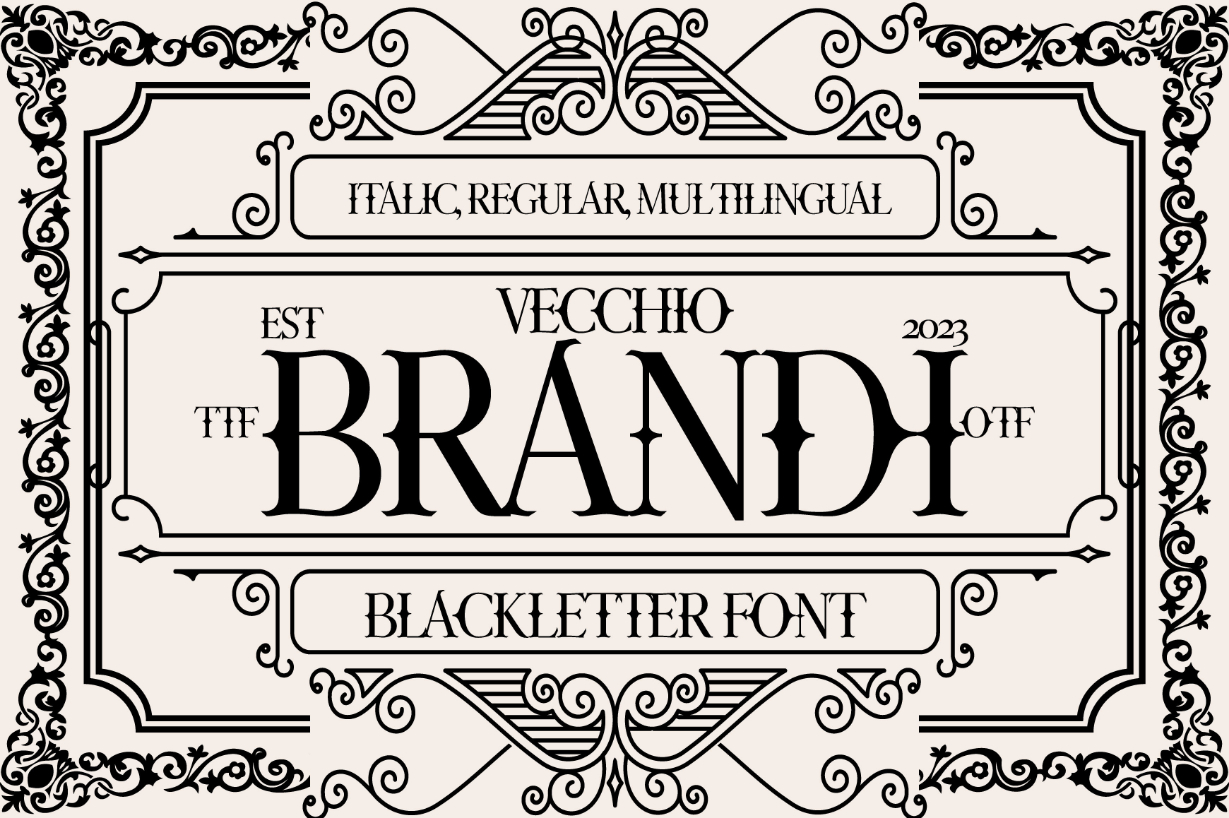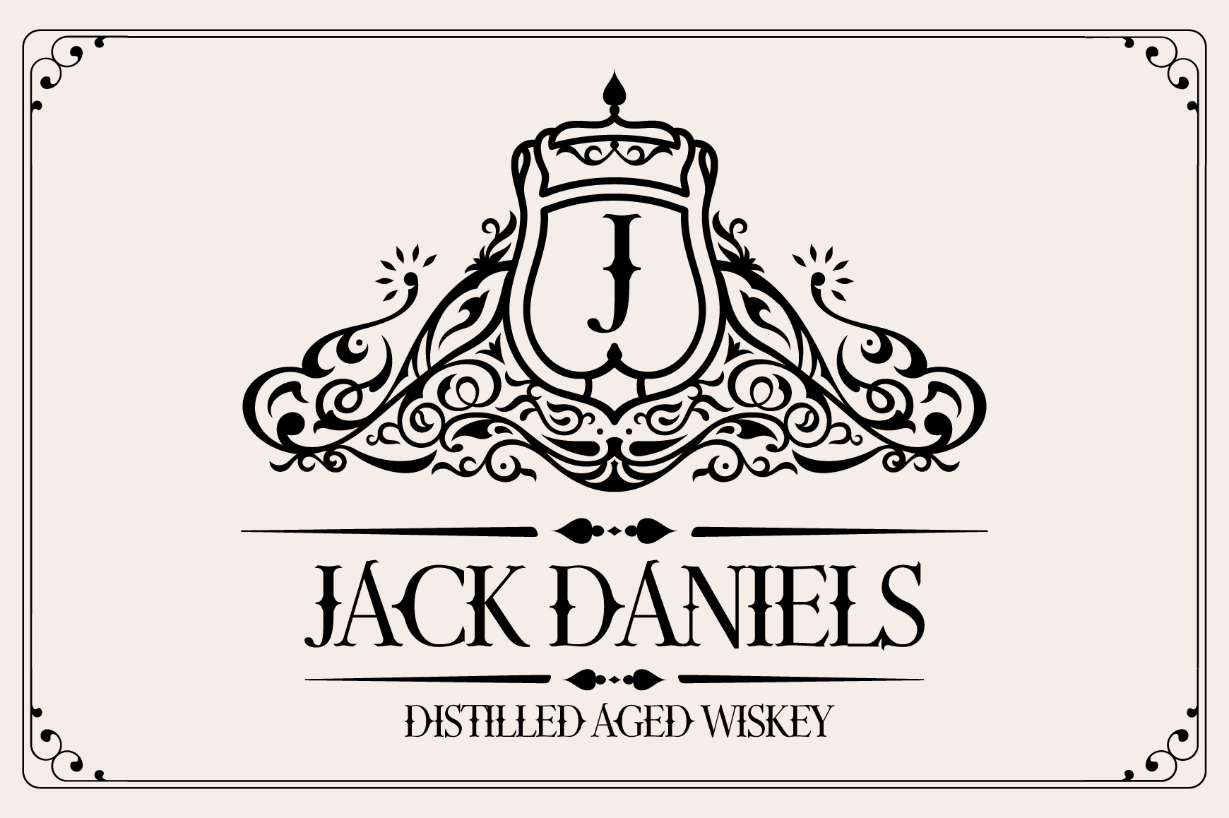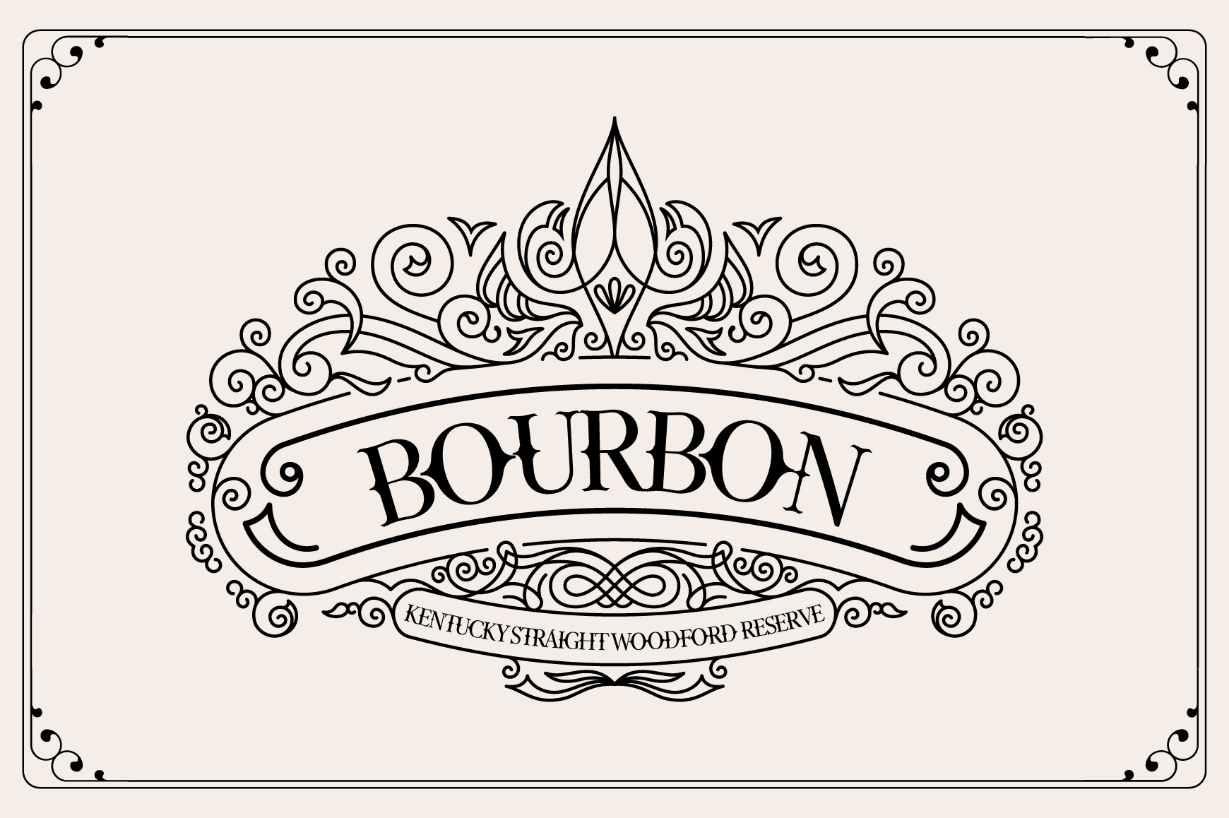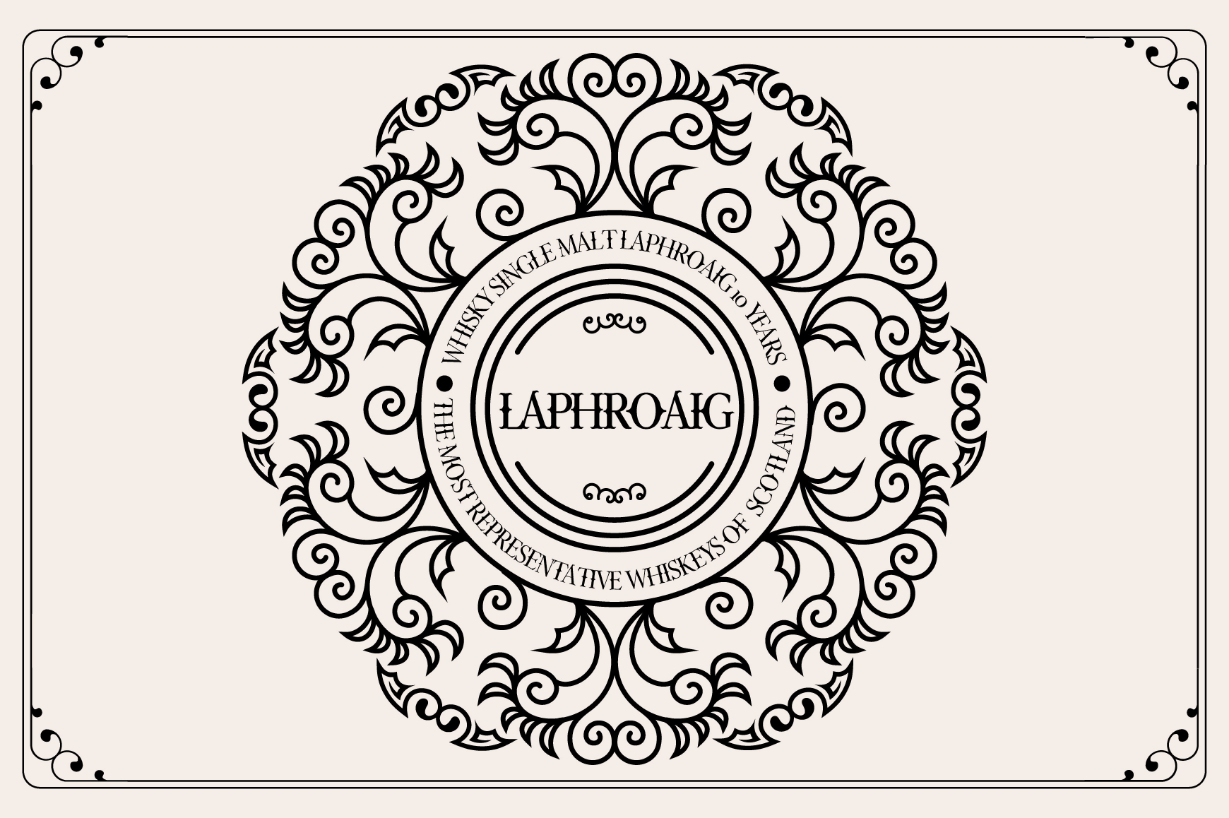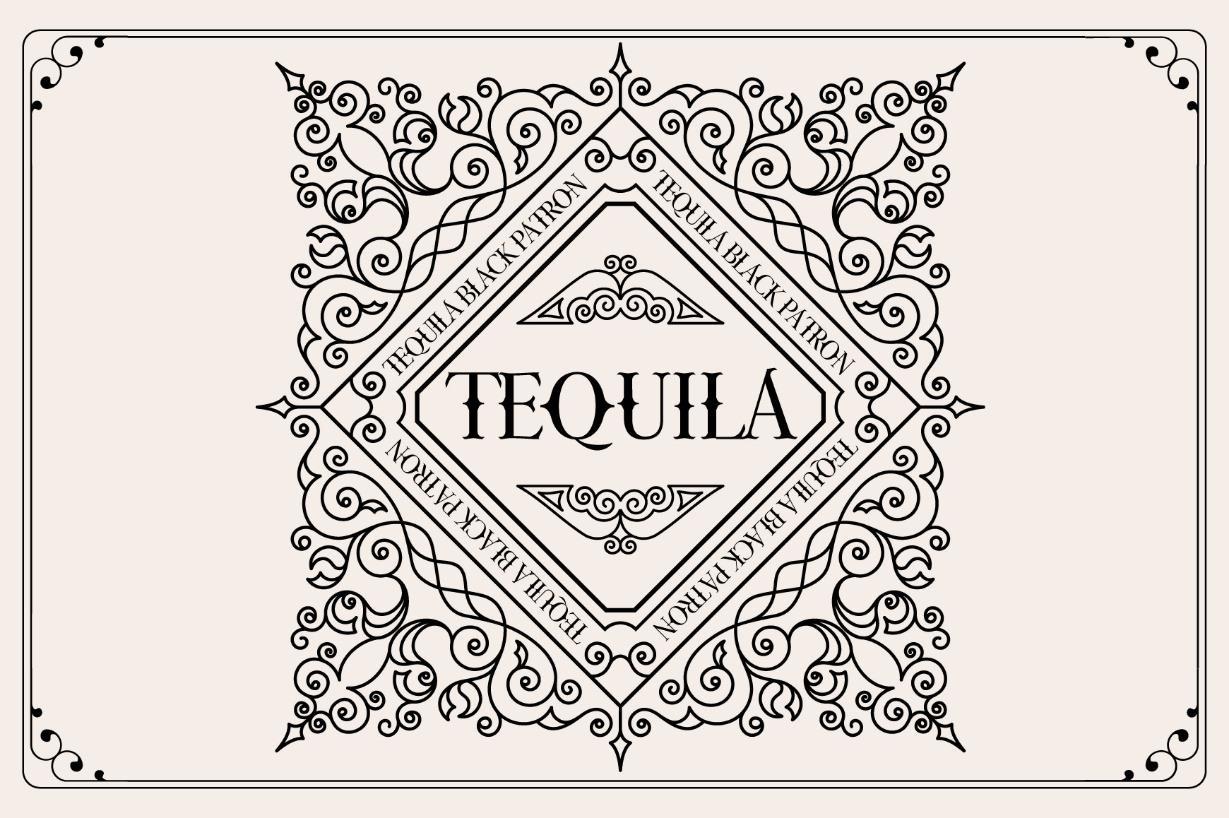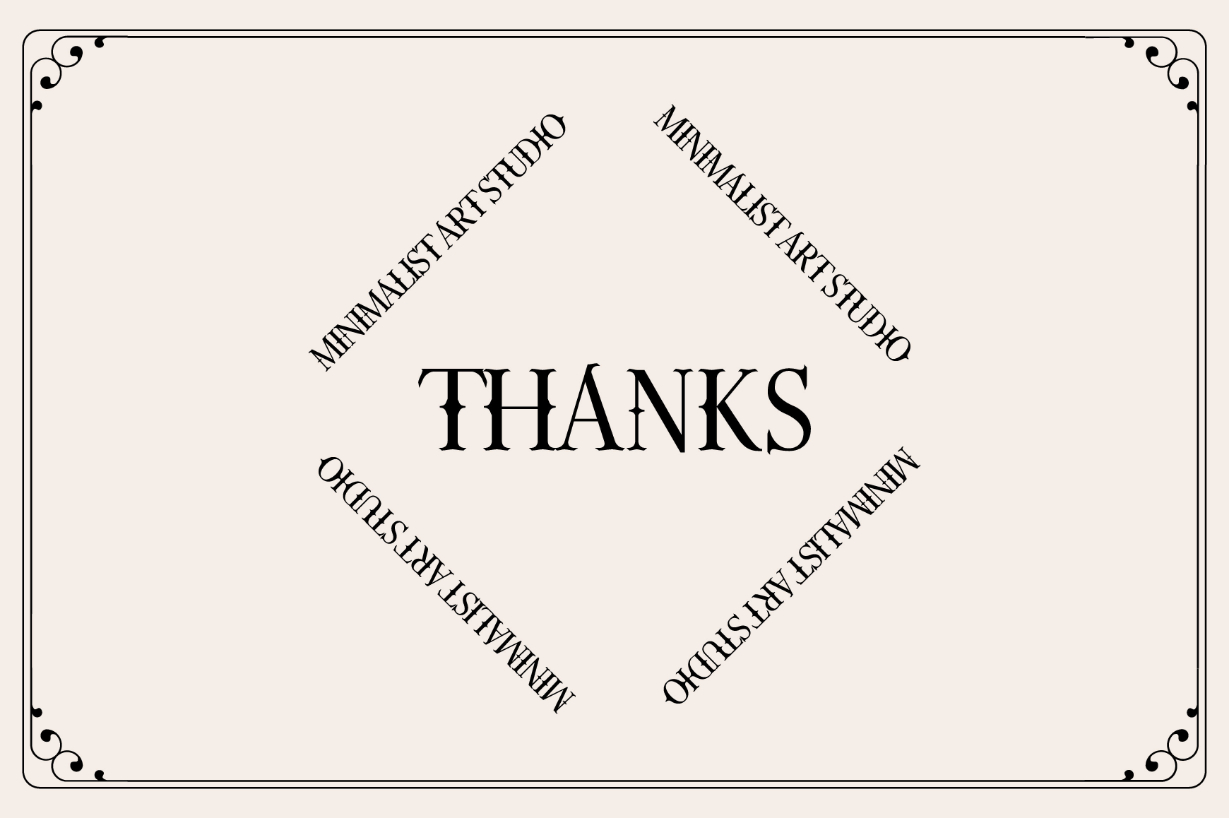
Vecchio Brandi Font
About Vecchio Brandi Font
Introducing “Vecchio Brandi”, a stunning serif blackletter font that will add a touch of elegance and sophistication to any design project! Perfect for packaging, alcoholic drinks design, label design, barber shops, tattoo shops, and more, this versatile font is sure to make your brand stand out from the crowd.